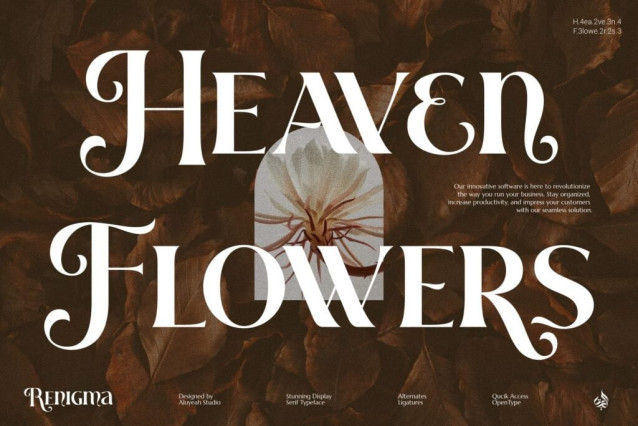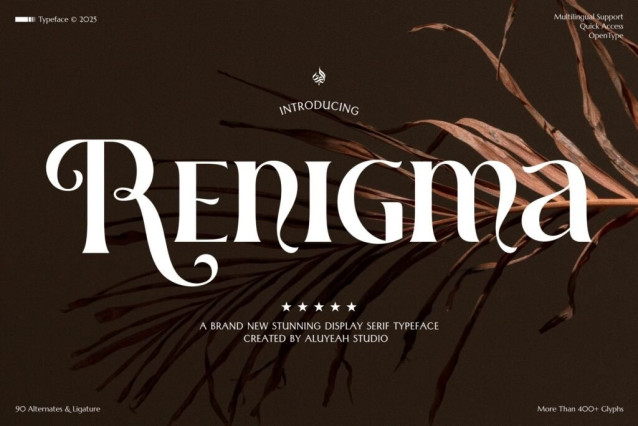
Renigma Font
Renigma Font, a stylish and versatile font that offers more than 400 glyphs, over 90 alternates and ligatures, Quick Access, OpenType and Multilingual support for 67 languages. Its quick access feature makes it easy to use all of its stunning alternates and ligatures, allowing you to create beautiful designs with ease. Creating beautiful designs has never been easier.